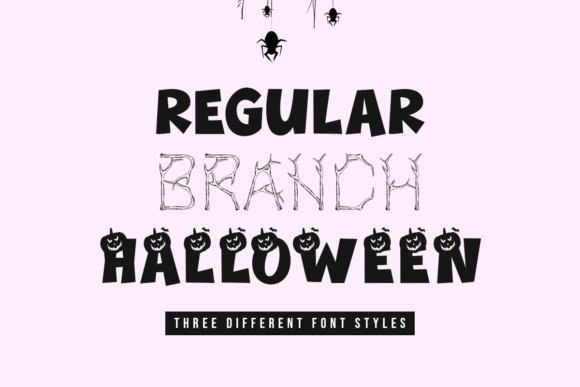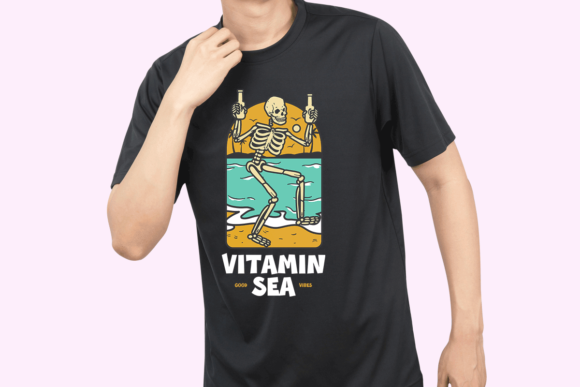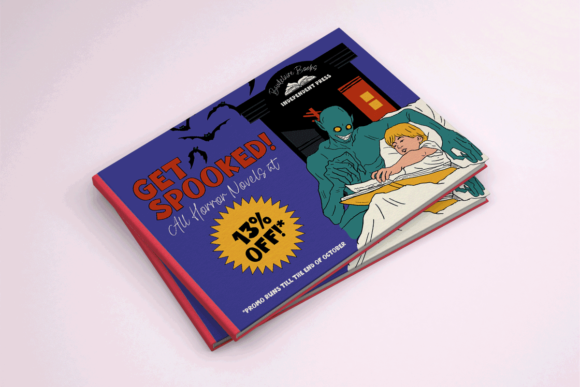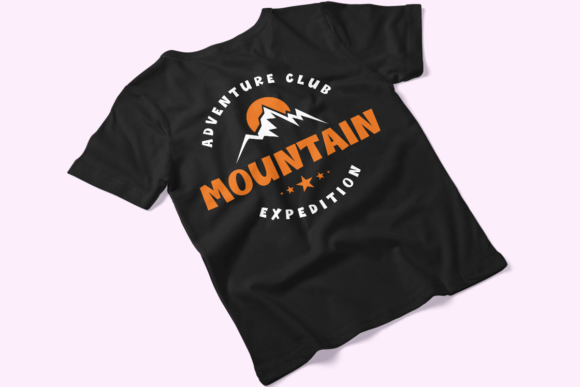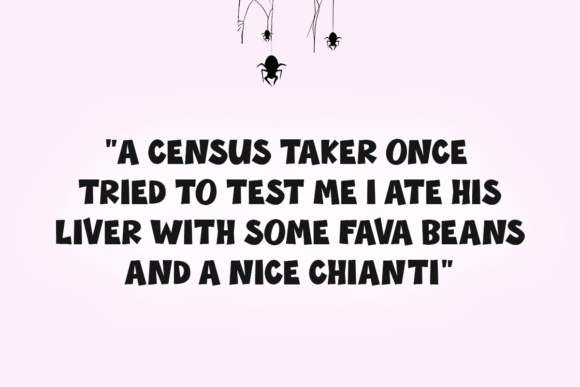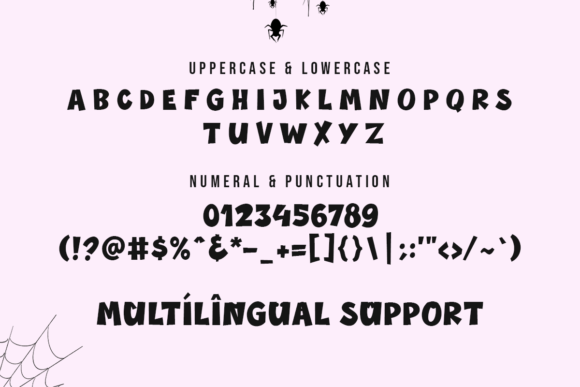
Bagonk Font: Elevate Your Crafting Ideas with a Bold, Modern, and Quirky Display Font
Are you a designer, crafter, or DIY enthusiast looking for a font that can add a touch of personality to your projects? Look no further than Bagonk Font, a bold, modern, and quirky display font that’s perfect for taking your crafting ideas to the next level. In this article, we’ll explore the features and benefits of Bagonk Font, and show you how it can elevate a wide range of crafting ideas, from cards to branding, labels, and more.
What is Bagonk Font?
Bagonk Font is a unique and eye-catching display font that’s designed to make a statement. With its bold and modern aesthetic, it’s perfect for crafters and designers who want to add a touch of personality to their projects. Whether you’re creating handmade cards, branding materials, labels, or other DIY projects, Bagonk Font is sure to turn heads.
Key Features of Bagonk Font
So what makes Bagonk Font so special? Here are just a few of its key features:
- Bold and modern aesthetic: Bagonk Font has a sleek and contemporary look that’s perfect for crafters and designers who want to create modern and stylish projects.
- Quirky and playful vibe: Despite its bold and modern aesthetic, Bagonk Font also has a quirky and playful vibe that’s perfect for adding a touch of personality to your projects.
- Highly versatile: Bagonk Font is a highly versatile font that can be used for a wide range of crafting ideas, from cards to branding, labels, and more.
- Easy to read: Despite its bold and quirky aesthetic, Bagonk Font is still easy to read, making it perfect for use in a wide range of contexts.
How to Use Bagonk Font
So how can you use Bagonk Font to elevate your crafting ideas? Here are just a few ideas to get you started:
- Handmade cards: Add a touch of personality to your handmade cards with Bagonk Font. Use it for the main message or as a decorative element to add visual interest.
- Branding materials: Use Bagonk Font to create eye-catching branding materials, such as business cards, letterheads, and packaging.
- Labels and tags: Add a touch of personality to your labels and tags with Bagonk Font. Use it to create eye-catching labels for your products or gifts.
- DIY projects: Bagonk Font is perfect for a wide range of DIY projects, from scrapbooking to home decor. Use it to add a touch of personality to your projects and make them stand out.
Why Choose Bagonk Font?
So why choose Bagonk Font over other fonts? Here are just a few reasons:
- Unique and eye-catching: Bagonk Font is a unique and eye-catching font that’s sure to turn heads.
- Highly versatile: Bagonk Font is a highly versatile font that can be used for a wide range of crafting ideas.